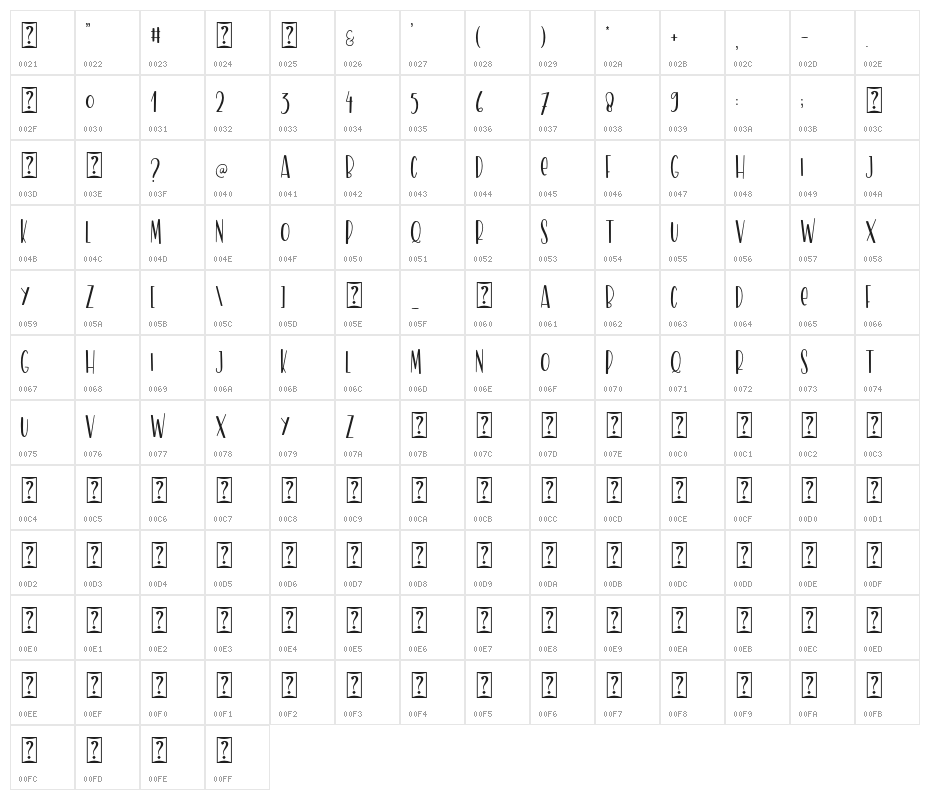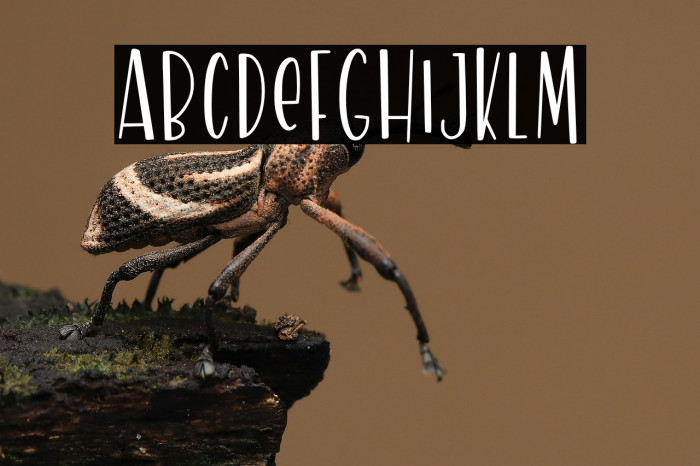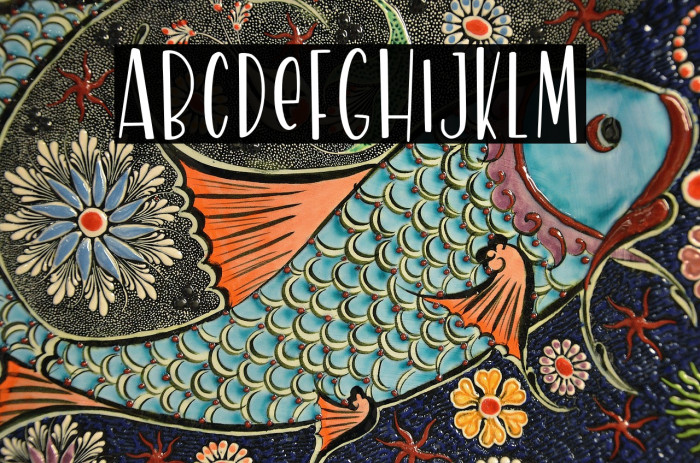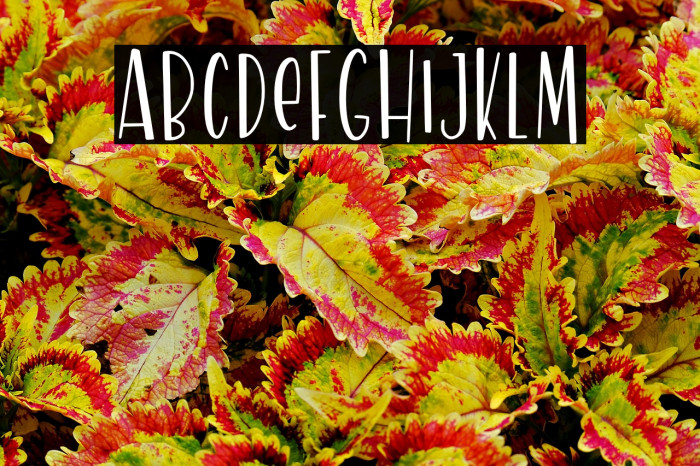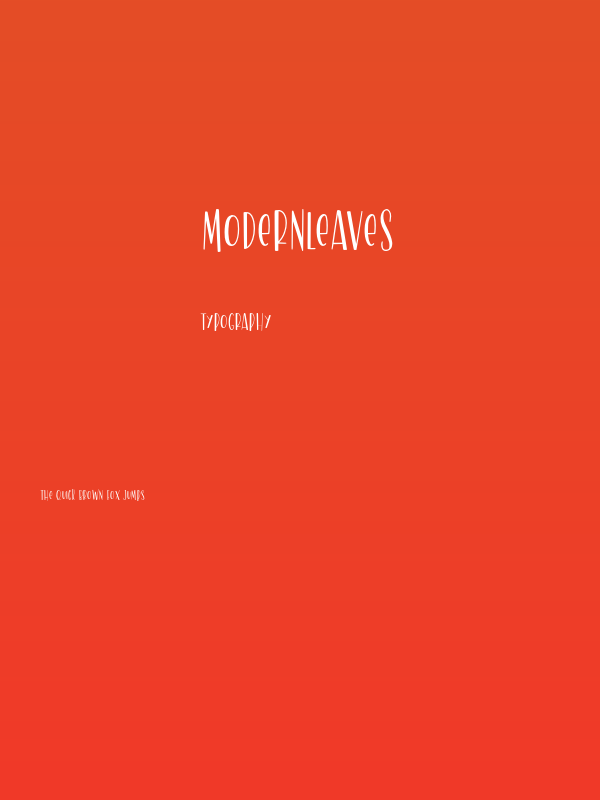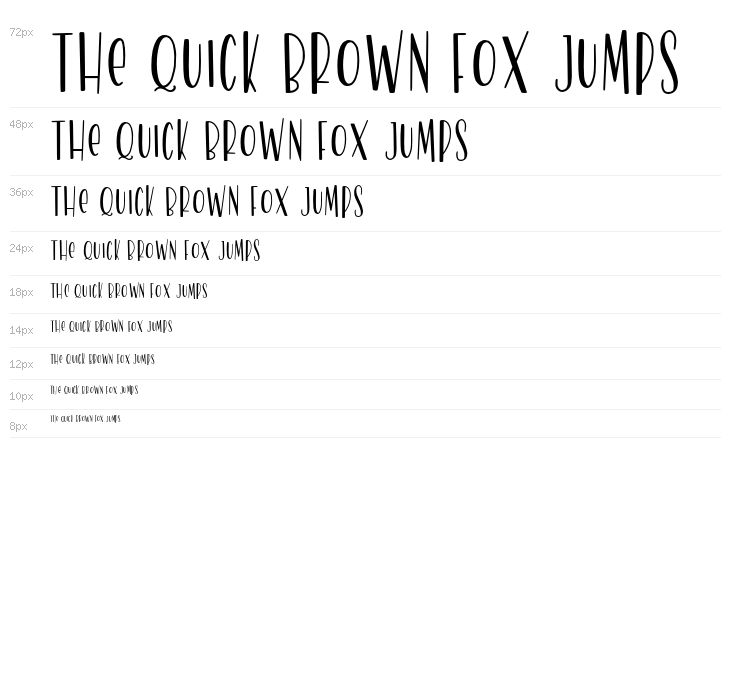
ModernLeaves Font
ModernLeaves Description
This font features a playful and modern design with tall, narrow letters that have a slight whimsical flair. The characters are slightly irregular, giving them a hand-drawn appearance, which adds to their charm and uniqueness. The uppercase and lowercase letters maintain a consistent style, with rounded edges and a slight tilt that suggests movement. The numbers are similarly styled, ensuring a cohesive look across all characters. Special characters are included, maintaining the same playful aesthetic. This font is perfect for projects that require a touch of creativity and fun.
| Proposed Projects | Ideal for children's books, creative branding, playful invitations, and artistic posters. |